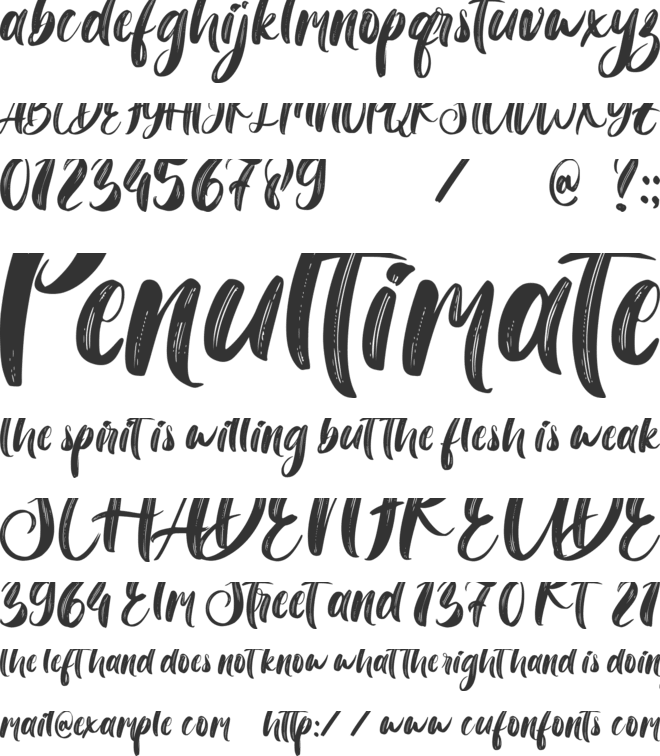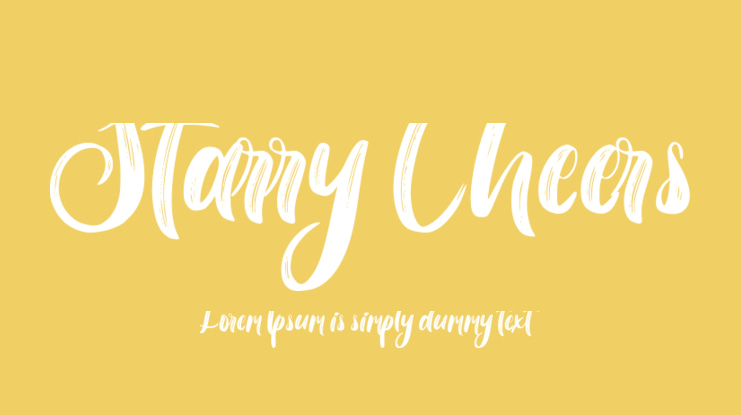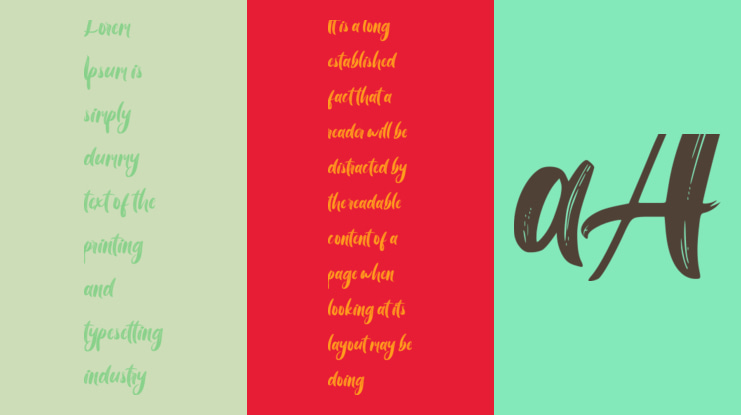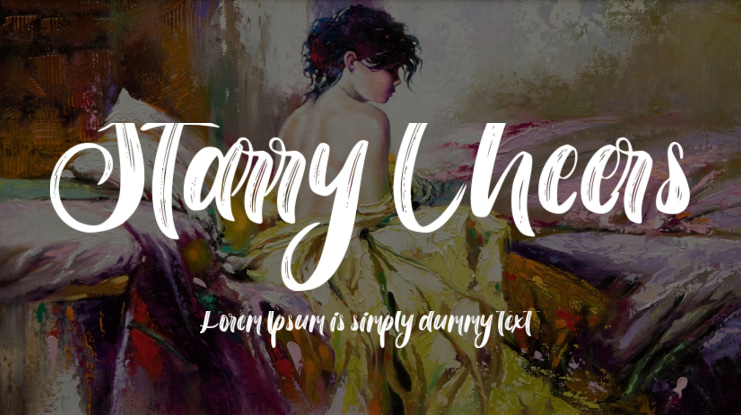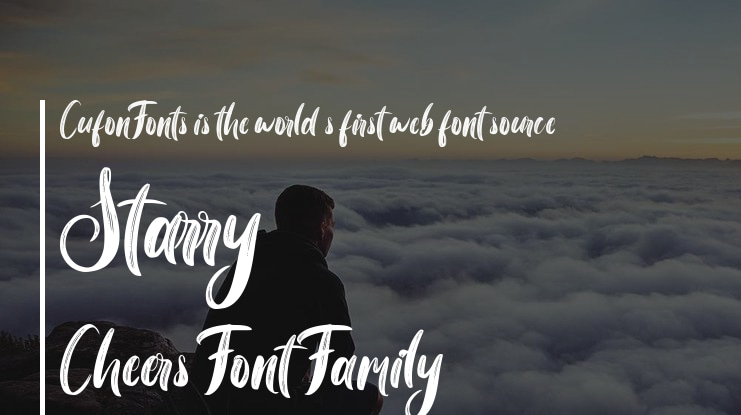
Starry Cheers Font
Immerse yourself in the festive spirit with Starry Cheers, a captivating font inspired by the joyous celebrations of Christmas and New Year. This font boasts exceptional versatility, seamlessly adapting to a wide range of design projects, making it the perfect choice for those seeking creative flexibility. Meticulously crafted with a unique brush, Starry Cheers exudes a natural charm paired with modern elegance, offering a classic yet contemporary visual appeal. With its sophisticated style and timeless allure, Starry Cheers elevates any design to an entirely new level of artistic elegance.